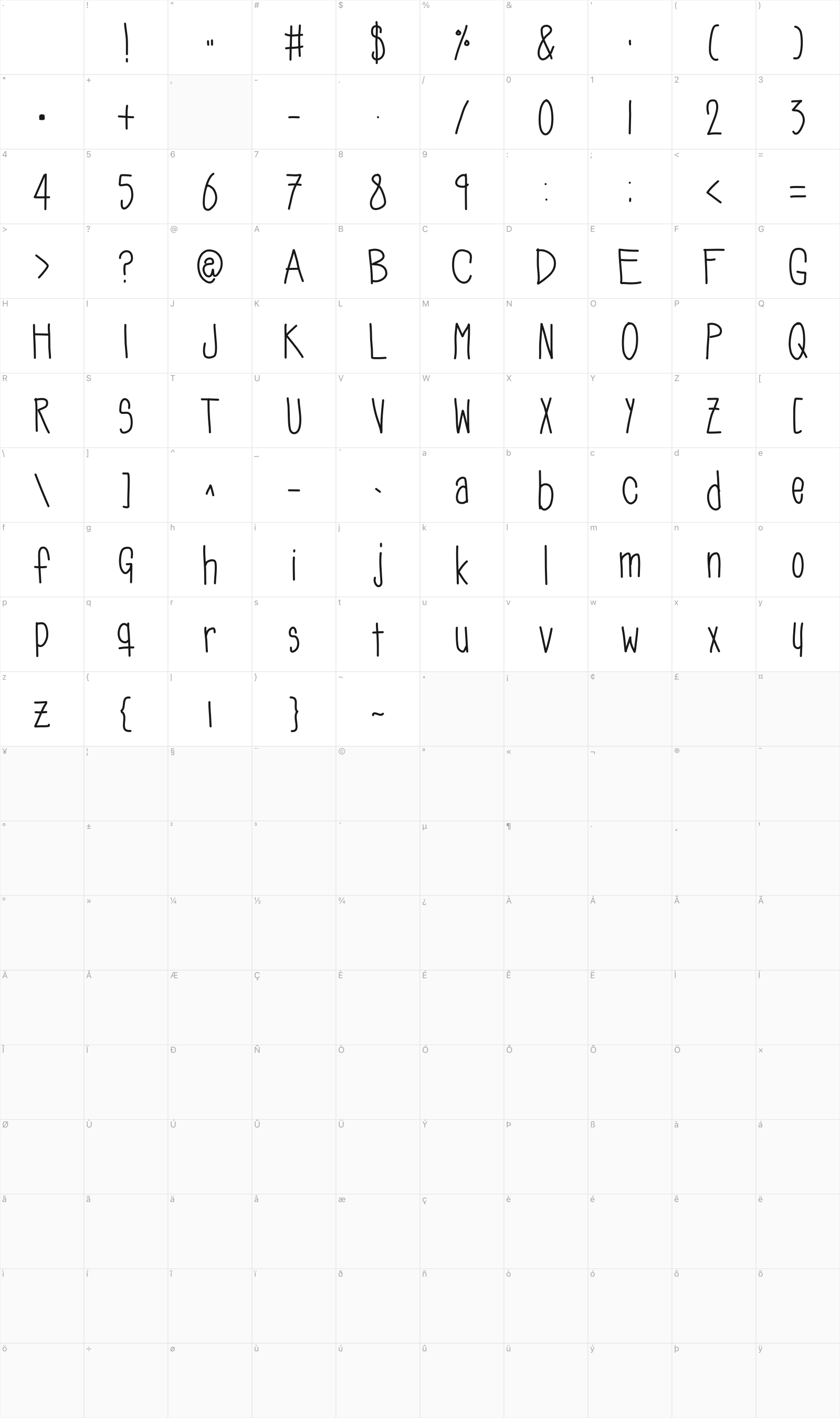
SoozieQs
SoozieQs is a thin, condensed handwritten face by Elliott Mariess with a distinctly feminine, quirky personality. The narrow letterforms have a light, airy quality that feels like quick pen strokes on a notepad, casual but intentional. Its condensed proportions and delicate weight make it a good fit for invitations, personal branding, greeting cards, and anywhere that calls for charm without heaviness.